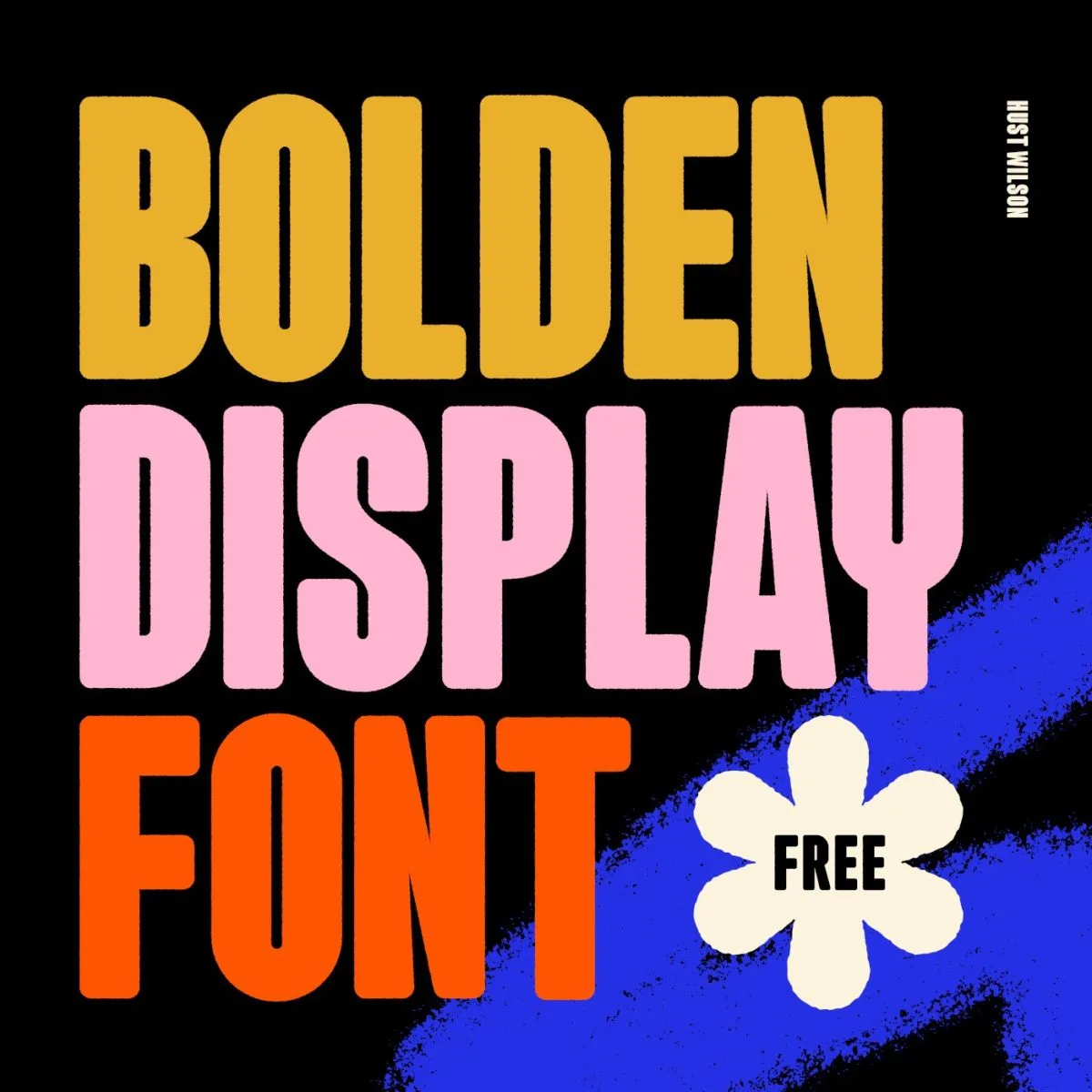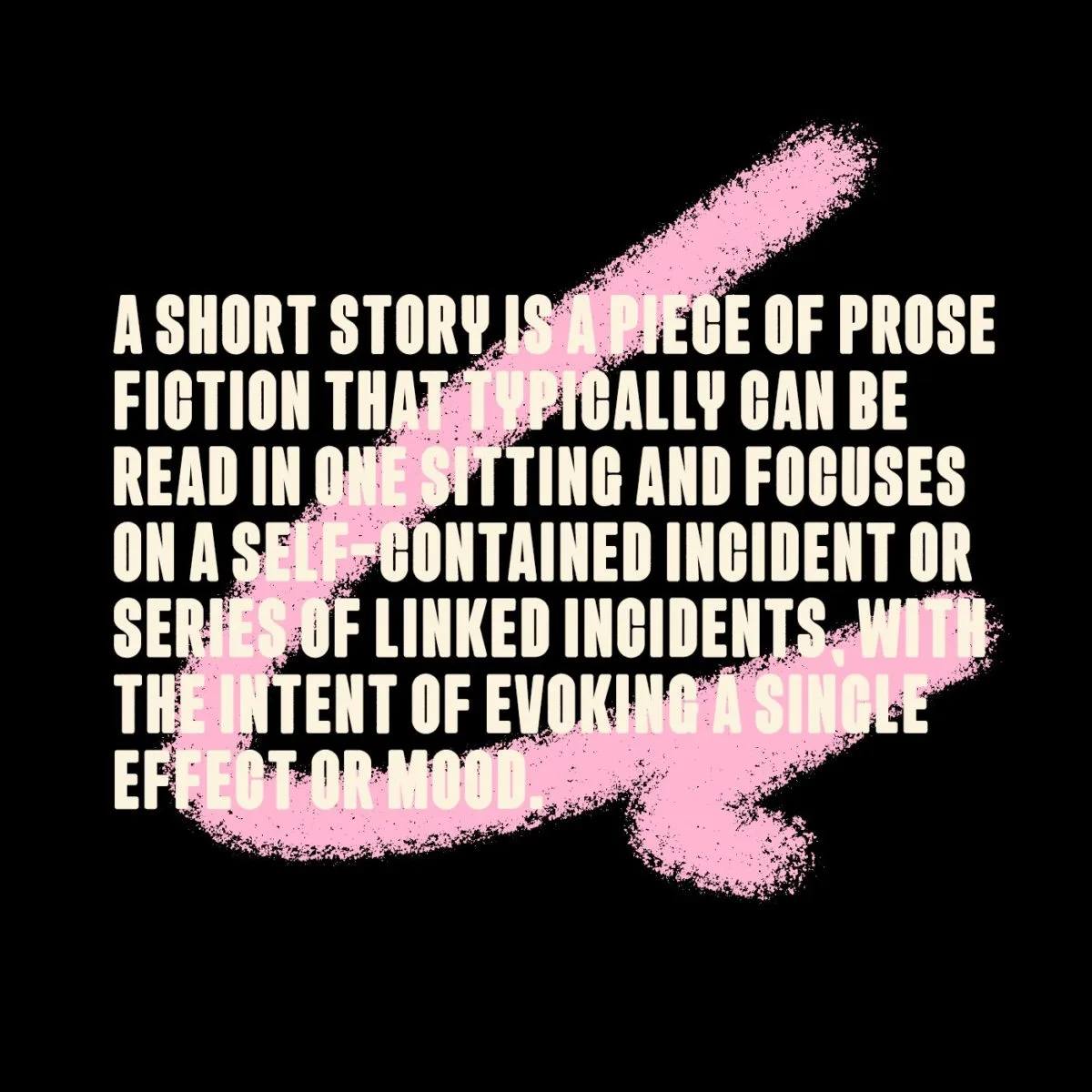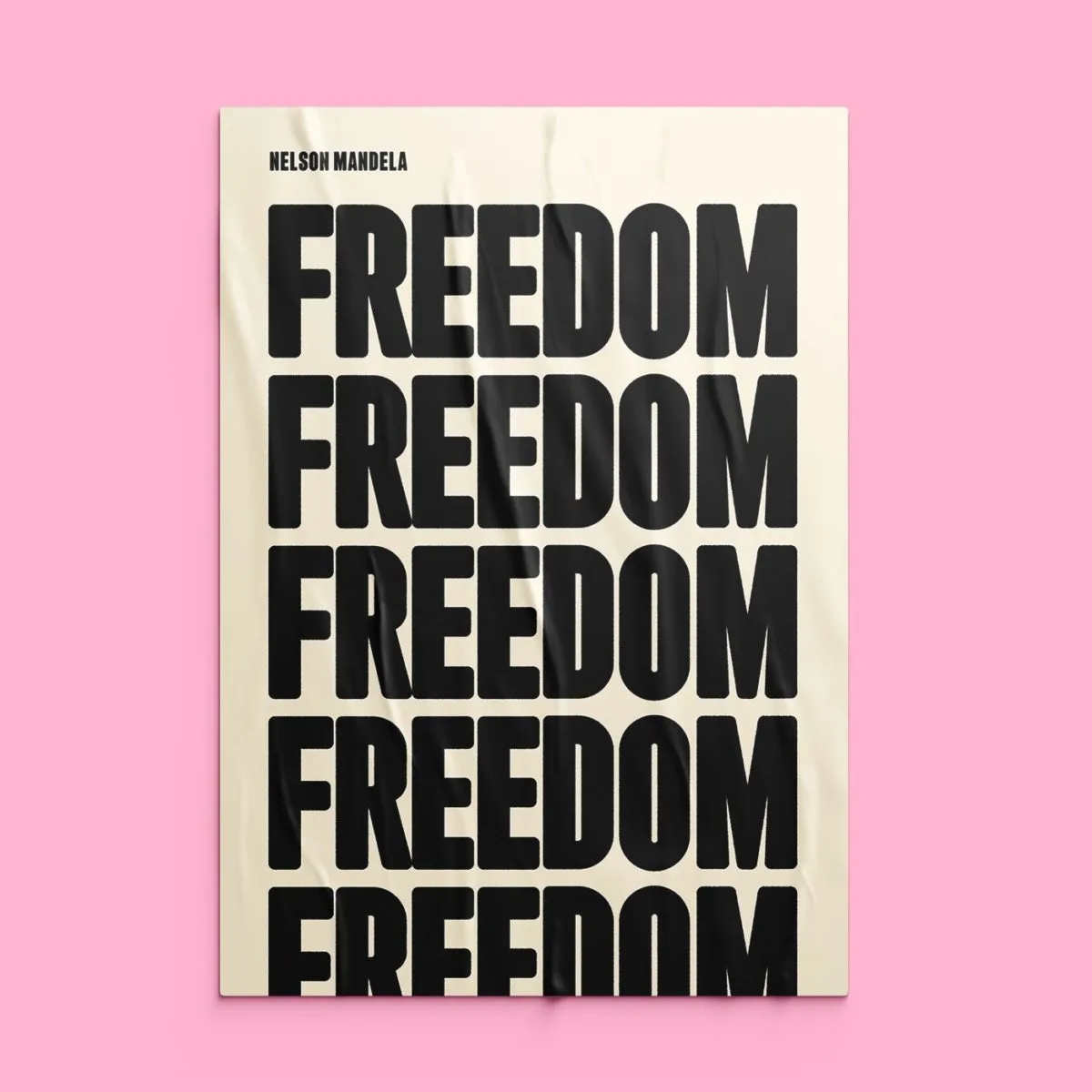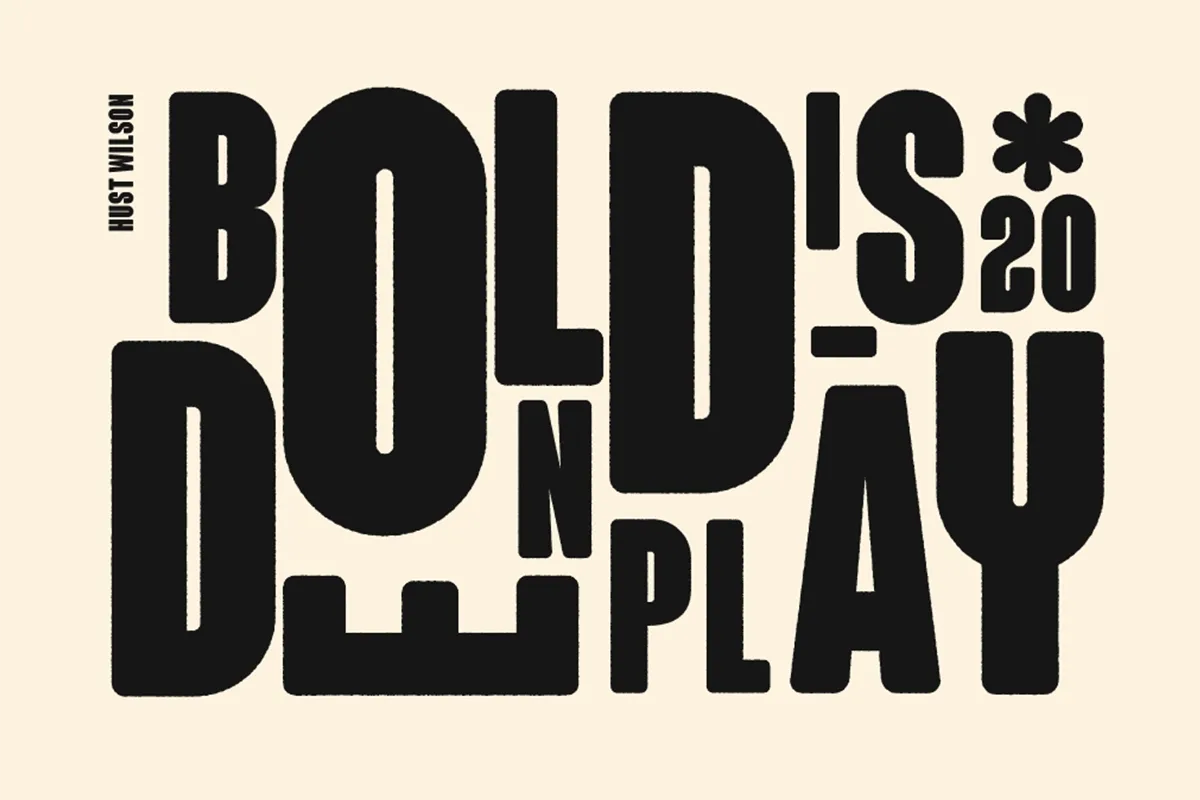
Huston Wilson, known as Hust Wilson, is a self-taught graphic designer based in Johannesburg. Growing up in the small community of Eldorado Park, Hust tells us he remembers ‘just wanting to draw and learn different design skills’, and improve his knowledge of the history of design.
‘I learnt a lot of my design knowledge through Youtube tutorials and enjoy I wide range of styles within in Typography and Lettering. I do to have an African aesthetic of work that I enjoy when working on Illustration and Lettering’, he says. Growing up doing pencil portraits, cartoons and graffiti tagging, Hust recalls never really realising creating fonts was job and is fully self taught as a designer. ‘I found my love for typography and lettering in 2014 and have never looked back. I started making sacrifices to buy more Typography and Lettering books, as well as buying digital PDFs on Lettering Library’, he adds.
One of our favourite works from Hust is his bold, free font, Bolden Display. ‘Bolden Display was inspired by letterpress letters with less counter space on the letters with tight kerning which is great for posters, display copy and editorial’, Hust tells us. You can definitely feel the letterpress inspiration with Bolden – it brings a softer, more tactile touch to your regular bold display sans. ‘I enjoyed creating this font, and I really wanted the people to enjoy it as well. It got me excited to see what people would create if they had access to this font for free!’ Hust adds.
Hust recently shared a WIP font he’s been working on which we think looks really exciting. ‘This was inspired by digital numbers, using a 5×5 grid to help layout the components of each letter’, he tells us. ‘Some letters had to be adjusted out of a grid to have a consistent width of the letters. I am hoping to launch this early next year – so stay tuned.’
As for the future, Hust just hopes to see more of the creativity we’ve seen in 2020. ‘Lettering and typography has been growing and has been so creatively expressive to share great messages or help with brands throughout 2020. Which is exciting to know what the next year holds for us’, he says. Be sure to follow Hust for updates on his work and to check out his WIP font which will hopefully be released early next year! You can get your hands on Bolden Display for free over at Type Department.